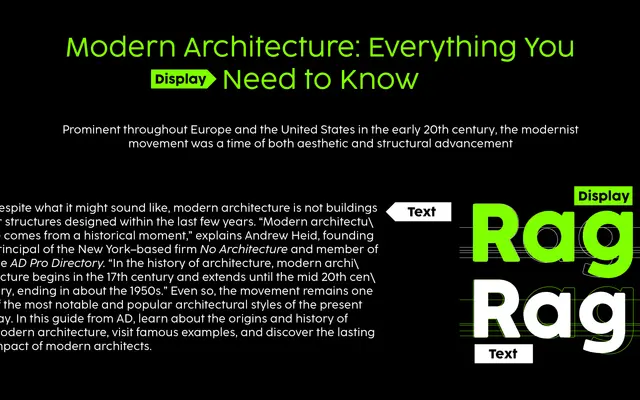
Cocogoose Pro
Zetafonts · Cosimo Lorenzo Pancini, Francesco Canovaro, Andrea Tartarelli, Mario De Libero · 2014
A rounded geometric sans drawn on a sign-painting vernacular, expanded across five widths, seven weights, layerable display variants and variable font technology.
Originally designed by Cosimo Lorenzo Pancini in 2013 and substantially overhauled in 2020, the family now spans 85-plus styles across Standard, Narrow, Condensed, Compressed and Ultracompressed widths. Decorative variants include Inline, Outlined, Block Border, Block Shadow and a Letterpress cut with programmed letter randomisation for an aged-print effect. Coverage extends to over 200 languages across Latin, Cyrillic and Greek, with nine stylistic sets, small capitals and a dedicated Text subfamily for body use.
Built on a geometric sans skeleton with rounded corners and very low stroke contrast, drawing on both modernist geometry and vernacular sign-painting traditions. Its tall x-height and bold colour push it firmly into display territory.